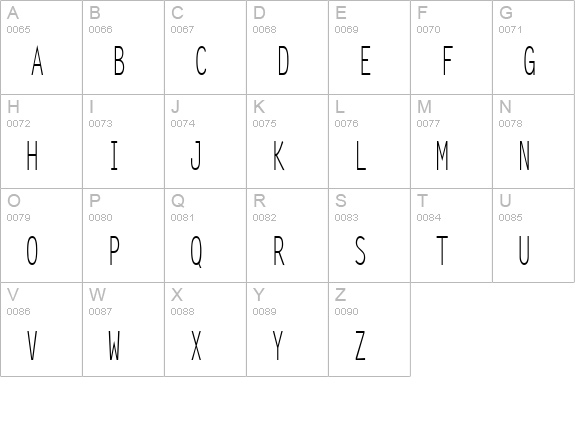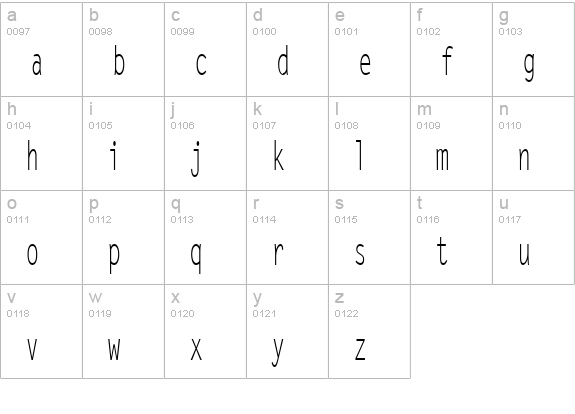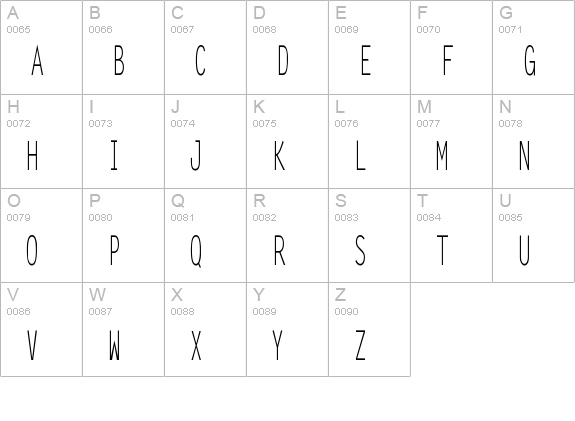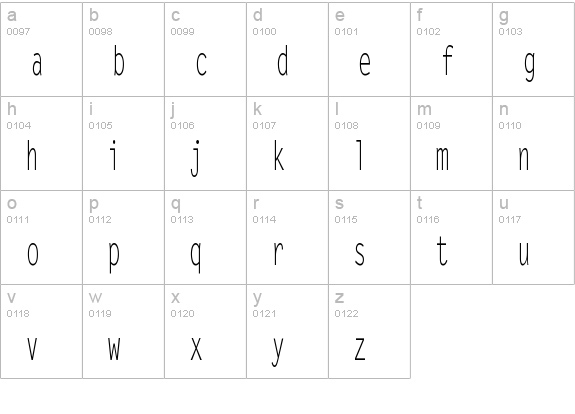
Lechter Thin Normal is a delicate, low-contrast variant in the Lechter typeface family \xE2\x80\x94 well suited to fashion editorial, minimal branding, and high-contrast display.
Lechter Thin Normal font is a delicate and sophisticated typeface that exudes elegance and modernity. With its slender letterforms and clean lines, this font brings a touch of refinement to any design project. Perfect for headlines, logos, and branding materials, Lechter Thin Normal font captures attention with its subtle yet impactful presence. Its thin strokes create an air of sophistication, making it ideal for upscale and contemporary designs. This font offers versatility, as it can be used for both digital and print applications. Whether you're designing a website, creating social media graphics, or crafting brochures and flyers, Lechter Thin Normal font will add a touch of class to your work. The best part is that Lechter Thin Normal font is completely free! You can easily download it from FontsMarket.com, a trusted source for high-quality fonts. With just a few clicks, you can have this beautiful typeface at your fingertips, ready to enhance your creative projects. Don't miss out on the opportunity to elevate your designs with Lechter Thin Normal font. Download it now and experience the beauty and versatility of this freely available font.